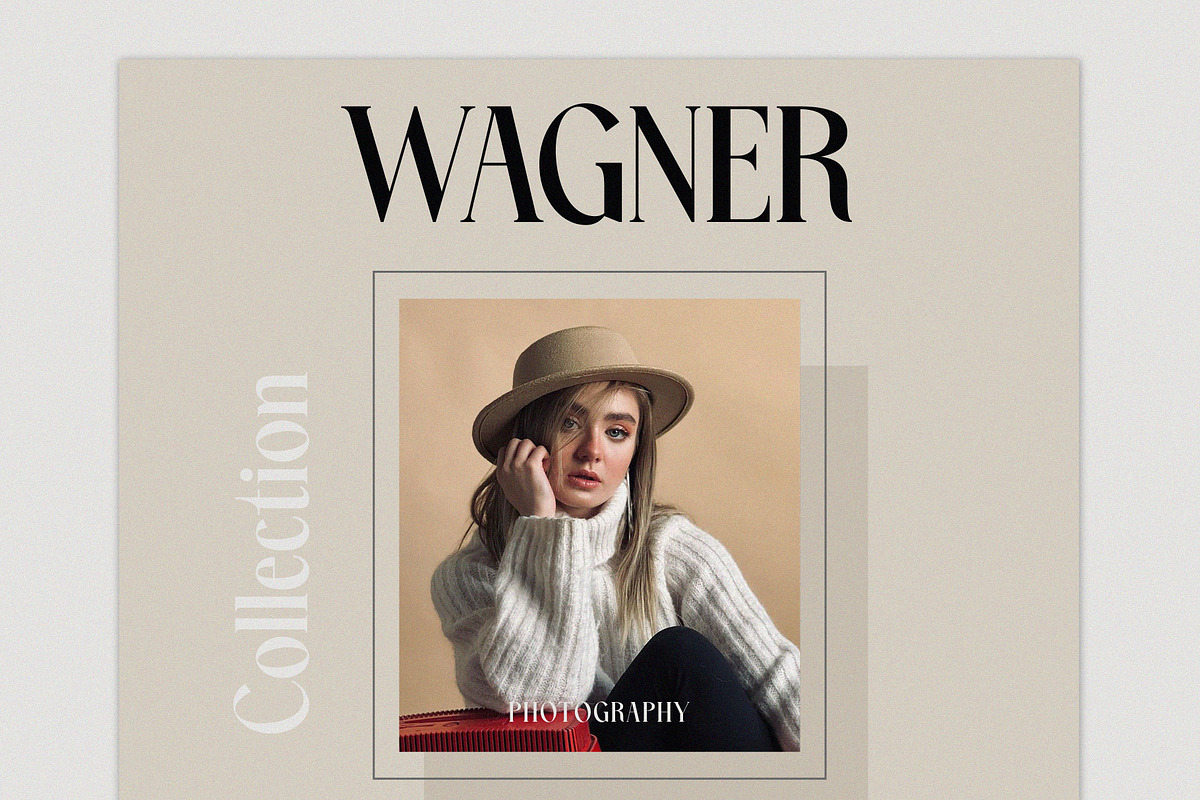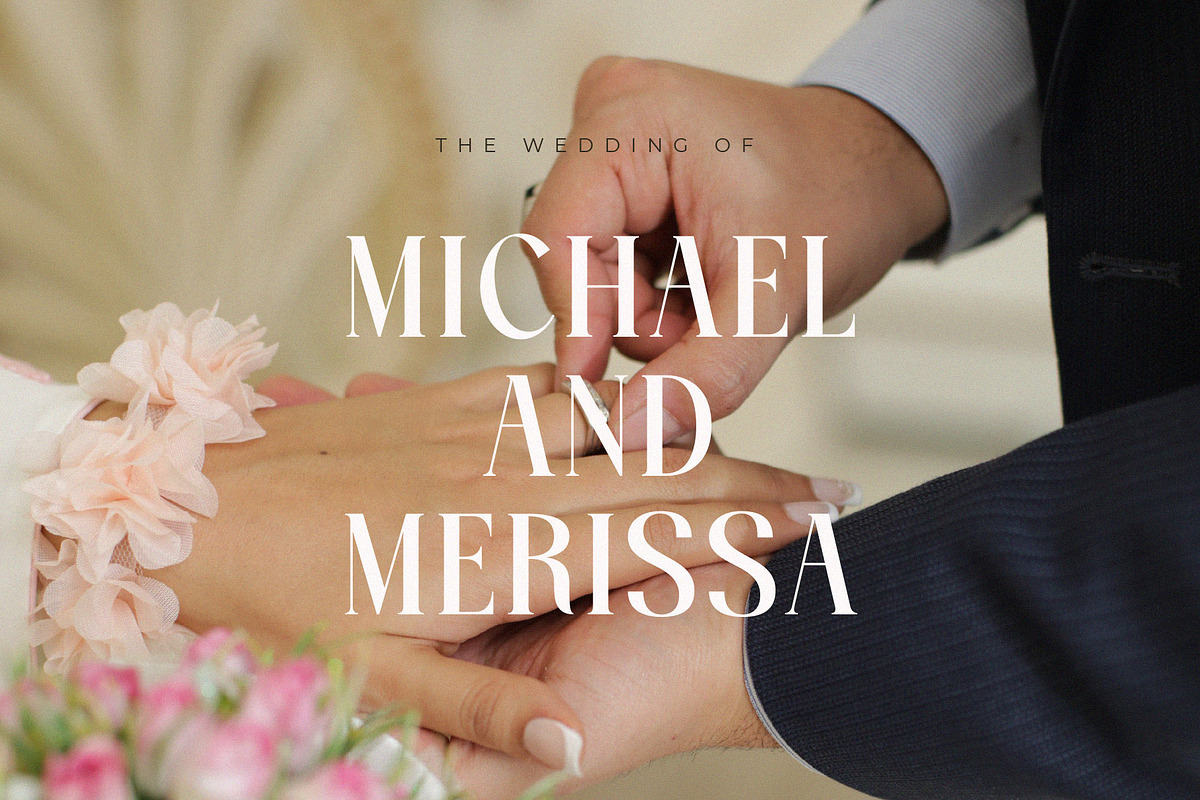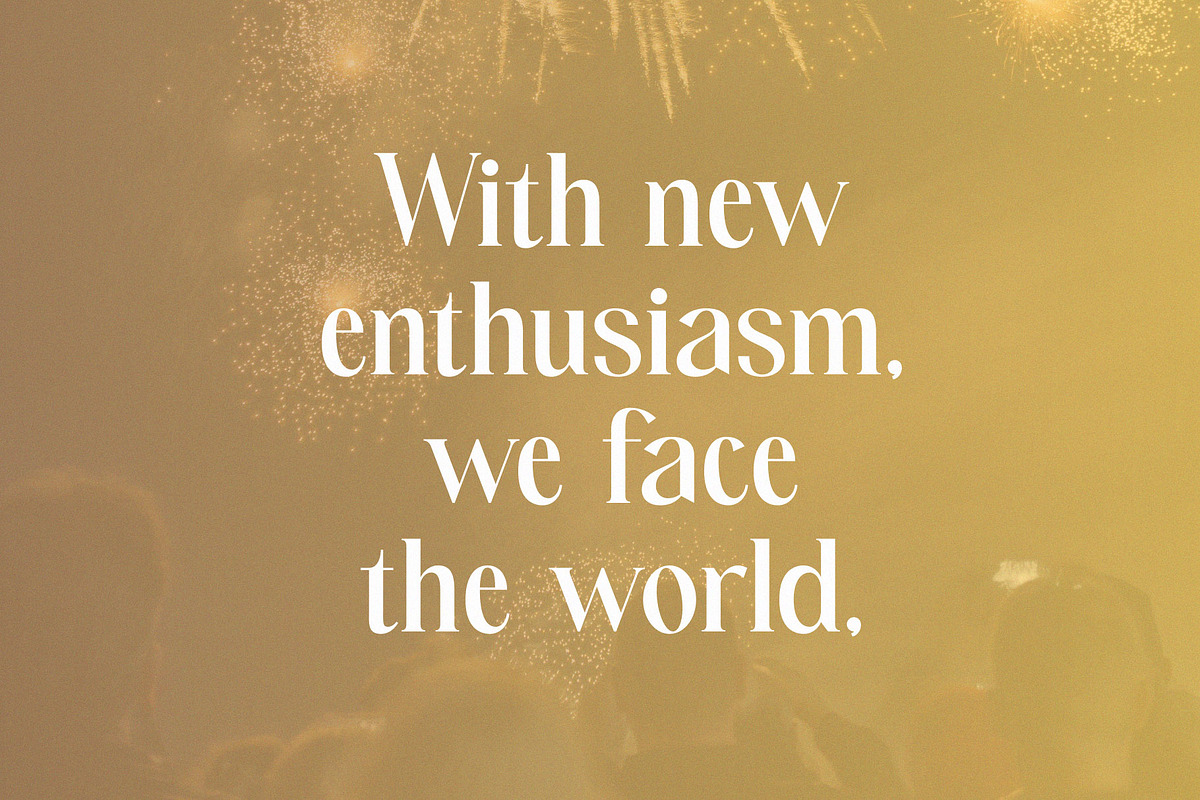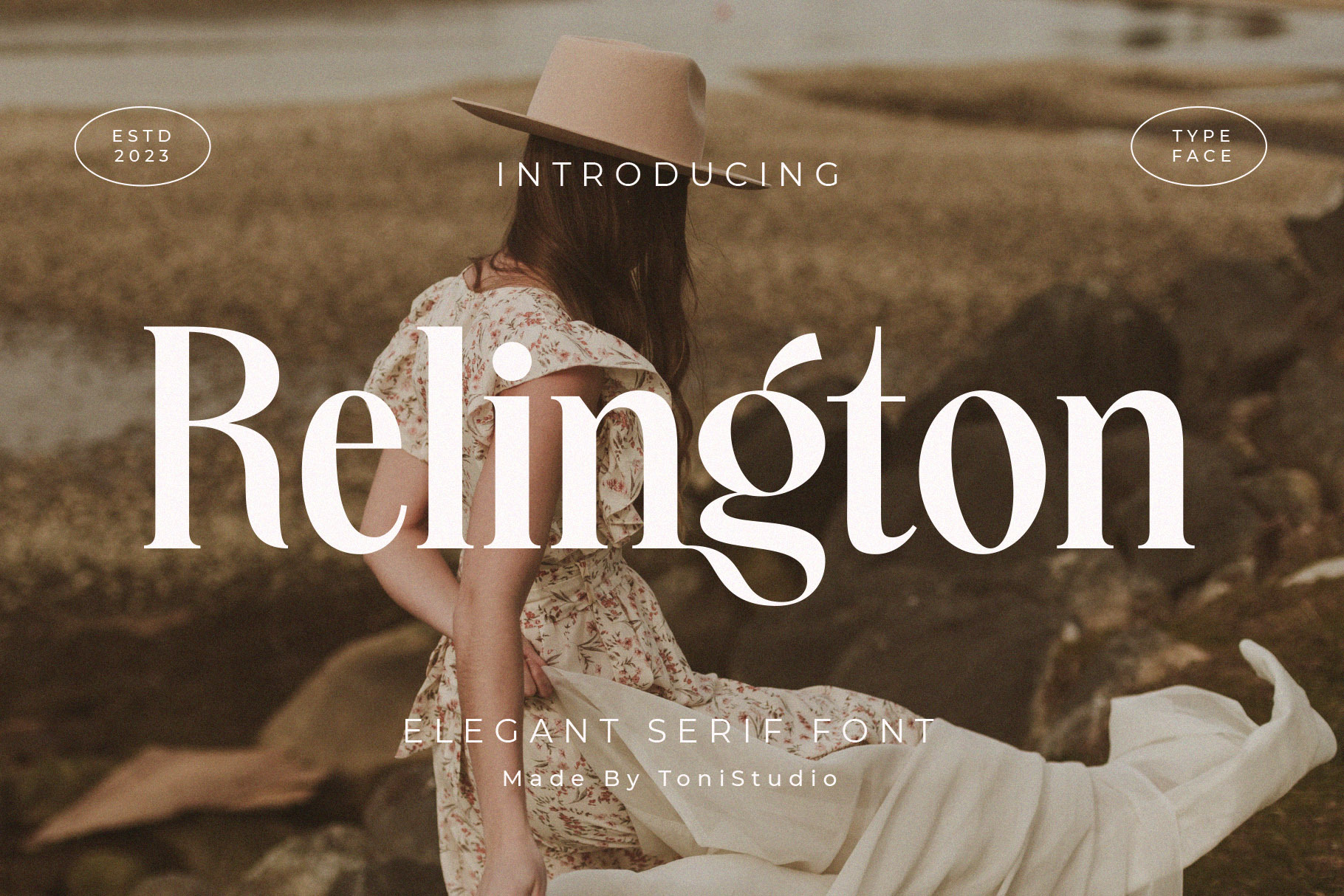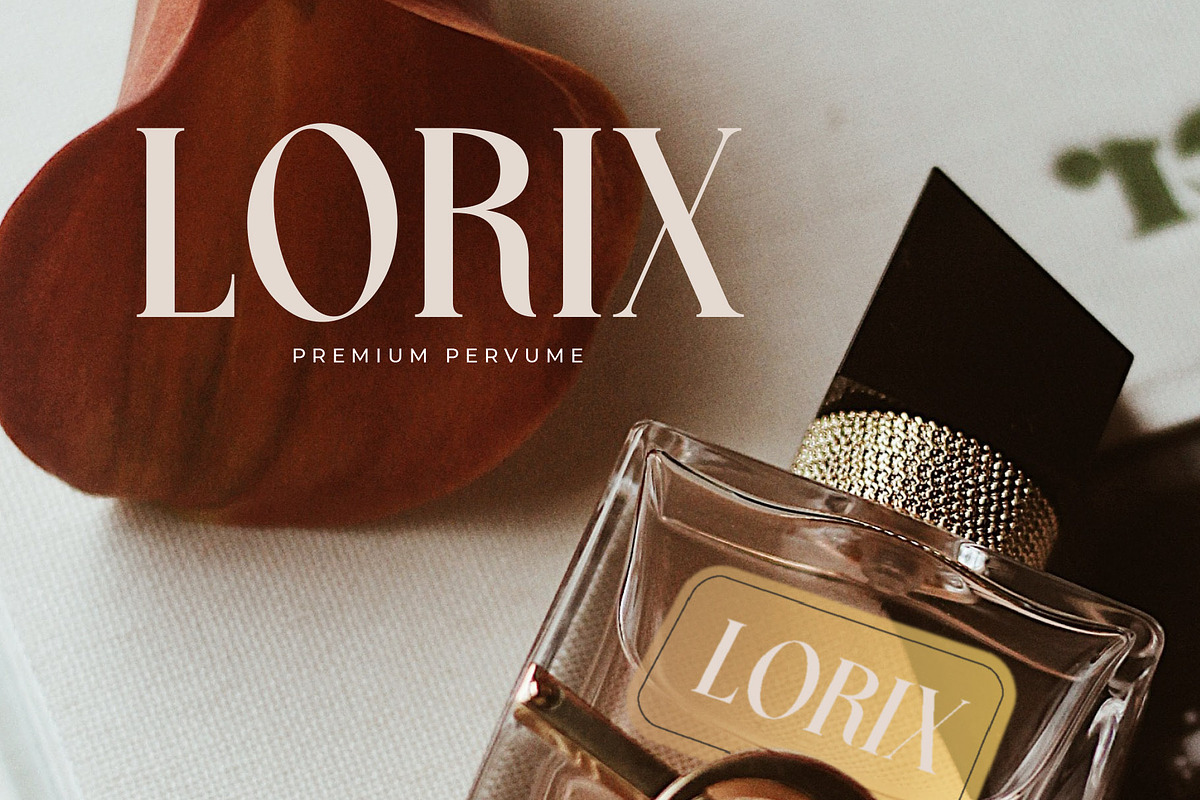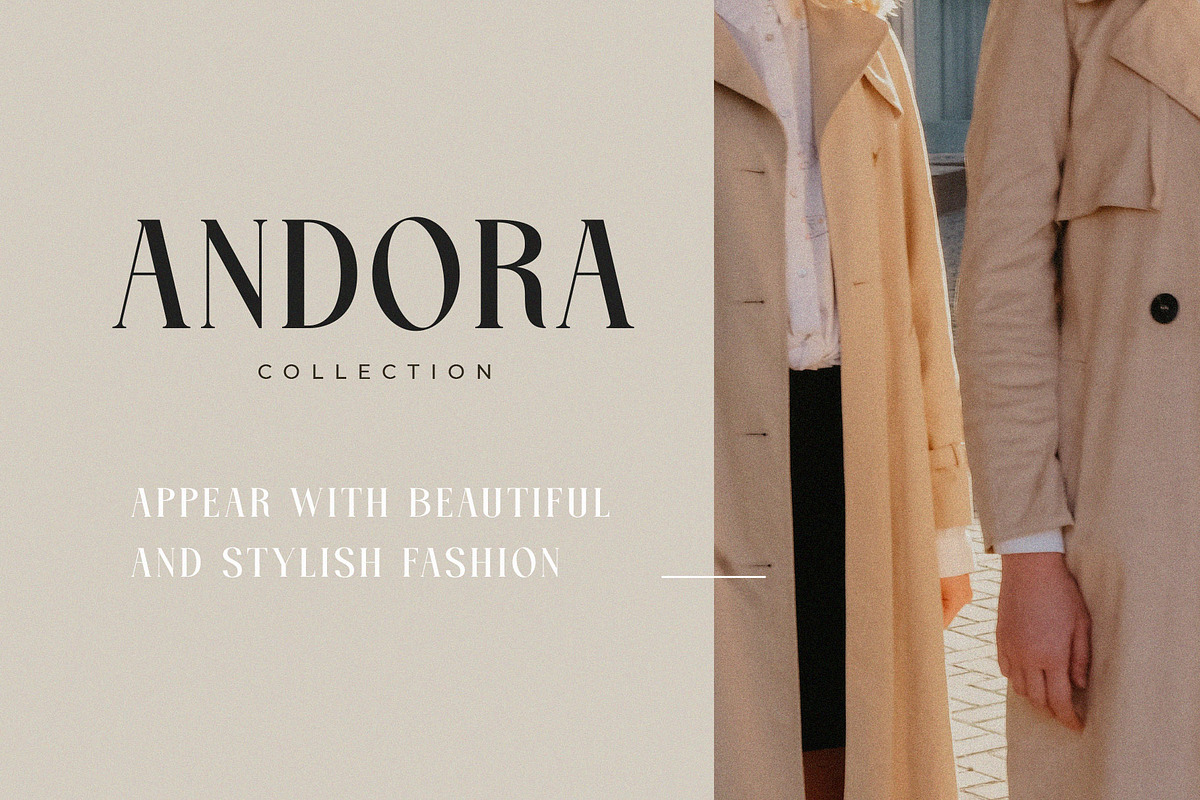
Relington-Elegant Serif Font
Relington is a highly versatile and elegant serif font that exudes timeless charm. With bold, bold curves and beautiful details, Relington is perfect for adding a classy, modern touch to your project. Whether you need a font for display purposes, web design, or social media, Relington will easily take your creation to the next level. Its luxurious curves add a touch of sophistication and uniqueness, making it a great choice for your project.